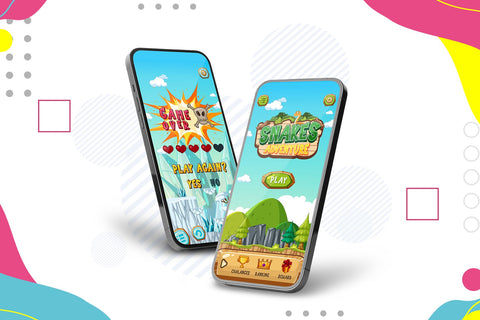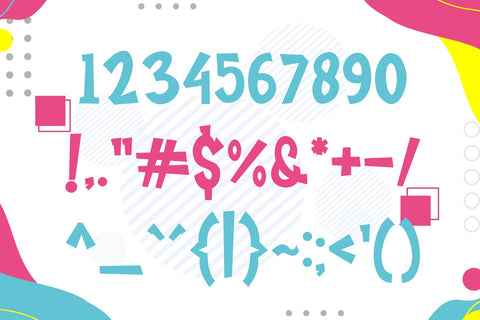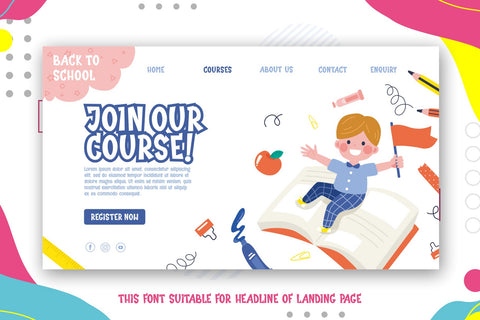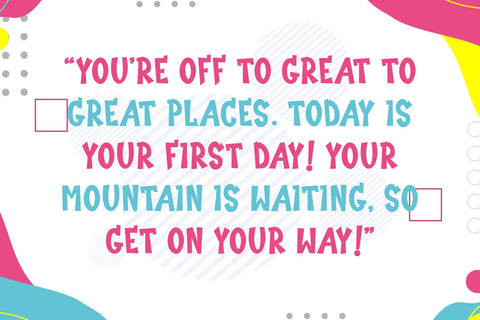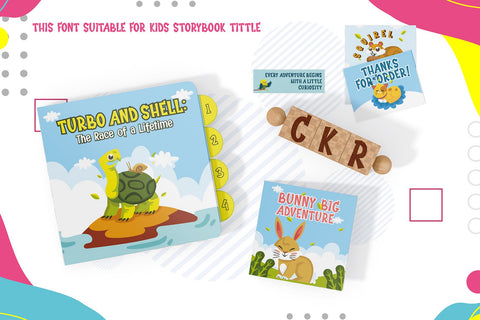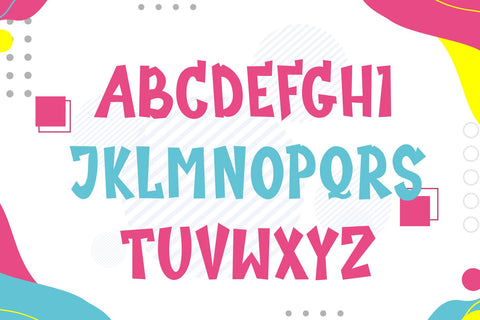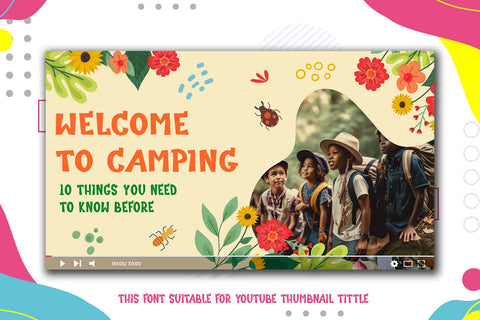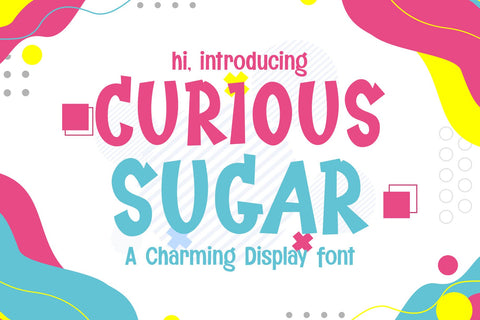
Curious Sugar - A Charming Display Font
"Curious Sugar" is a cute display font with thin and quirky characters, making it ideal for any project centered around kids, babies, children, school, or eye-catching headlines. This delightful typeface brings a playful and whimsical touch to your designs, perfect for children's books, educational materials, nursery decor, birthday invitations, and classroom posters. Its unique and engaging style captures the essence of youthful creativity and fun, ensuring your projects resonate with a young audience. With "Curious Sugar," your designs will stand out with personality, charm, and a sense of joyful innocence.
- Kids Friendly Characters Alphabet